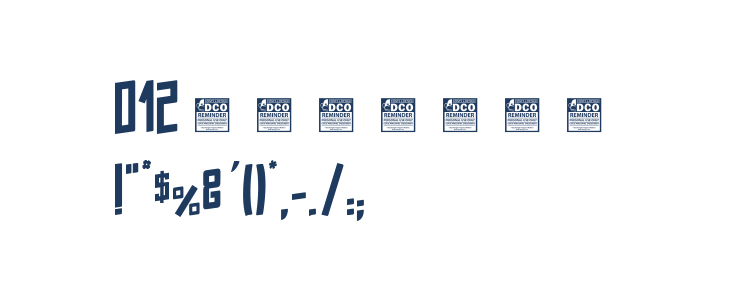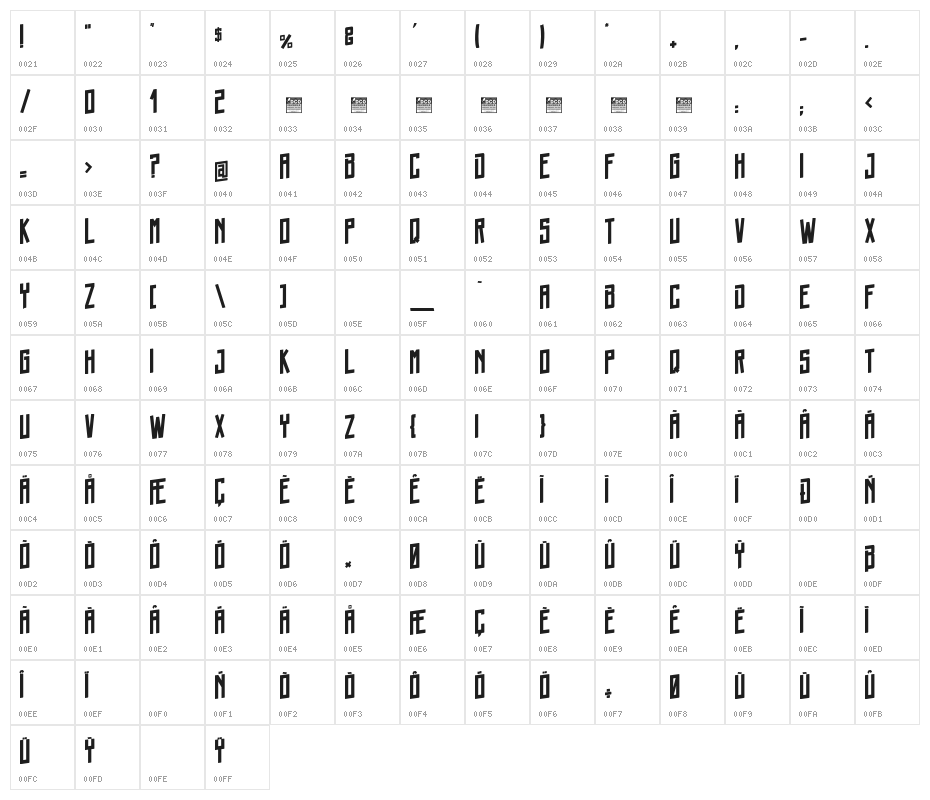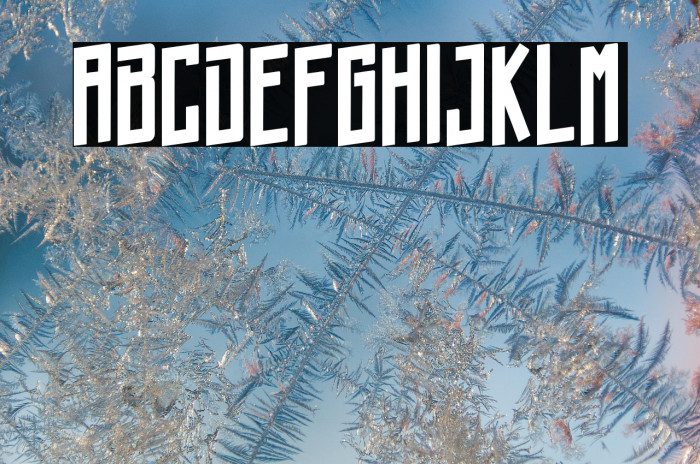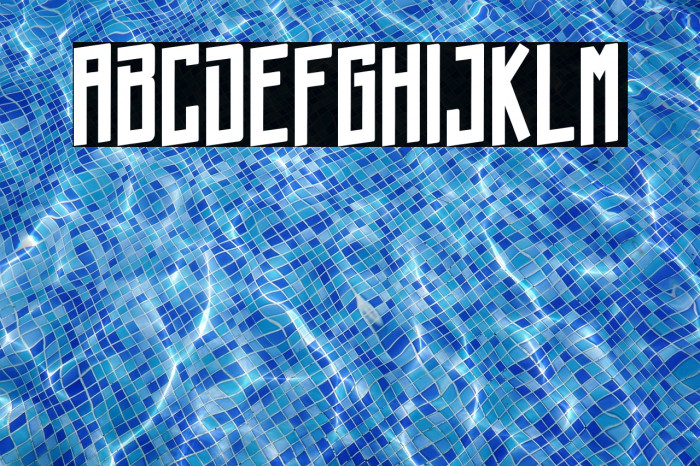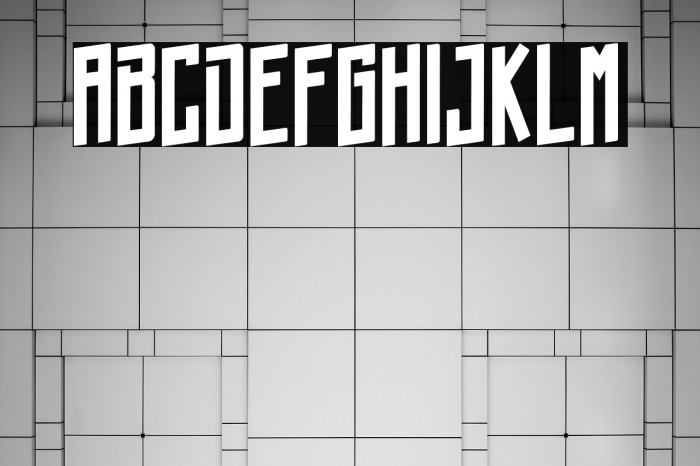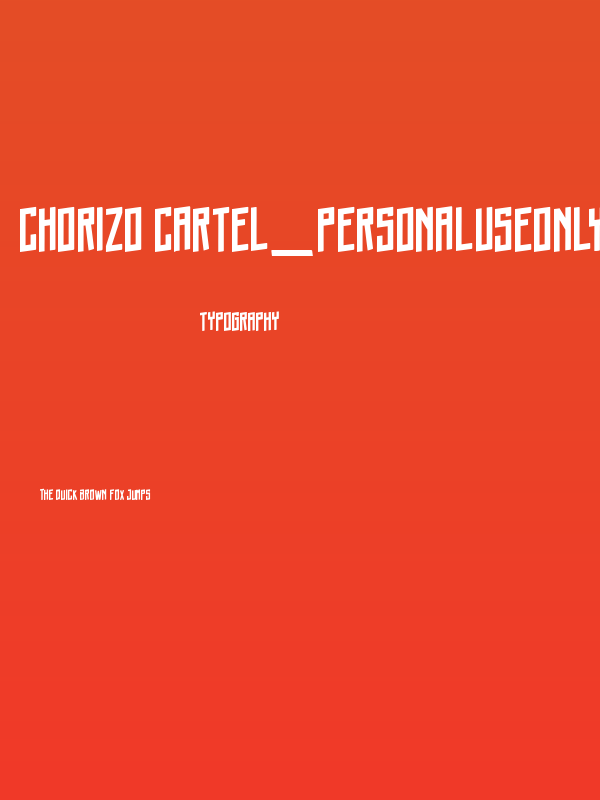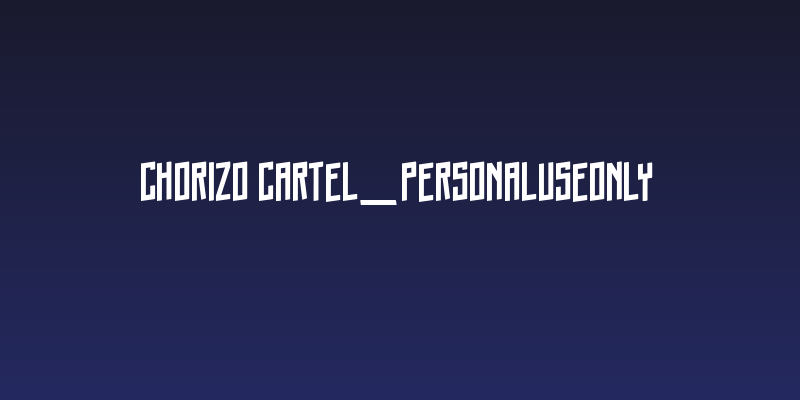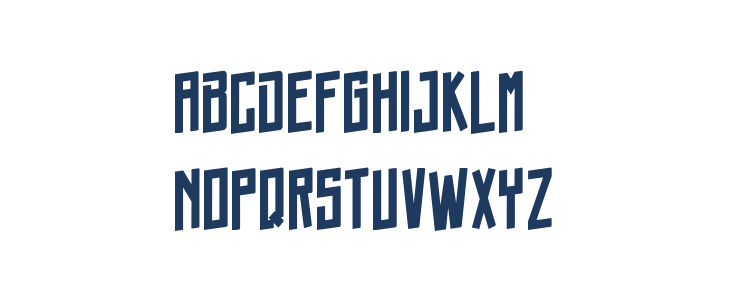
Chorizo Cartel_PersonalUseOnly Font
Chorizo Cartel_PersonalUseOnly Description
This font features a bold and angular design with a strong presence. The characters are tall and narrow, giving a condensed appearance that emphasizes verticality. The strokes are consistent in width, providing a uniform look across all characters. The uppercase letters are particularly striking, with sharp edges and a geometric style that suggests a modern, industrial aesthetic. The numerals and special characters maintain this cohesive design, ensuring readability and impact. This font is well-suited for projects that require a bold statement, such as posters, headlines, or branding materials.
| Proposed Projects | Ideal for posters, headlines, branding, and any project needing a strong visual impact. |